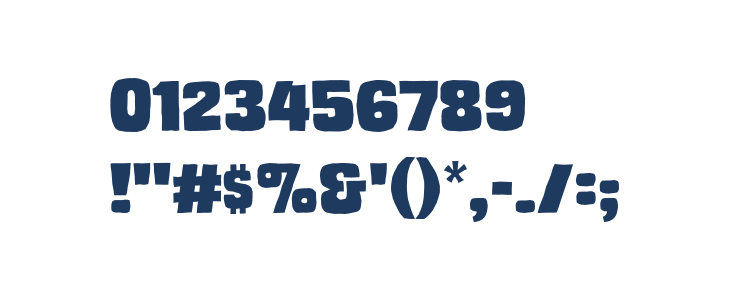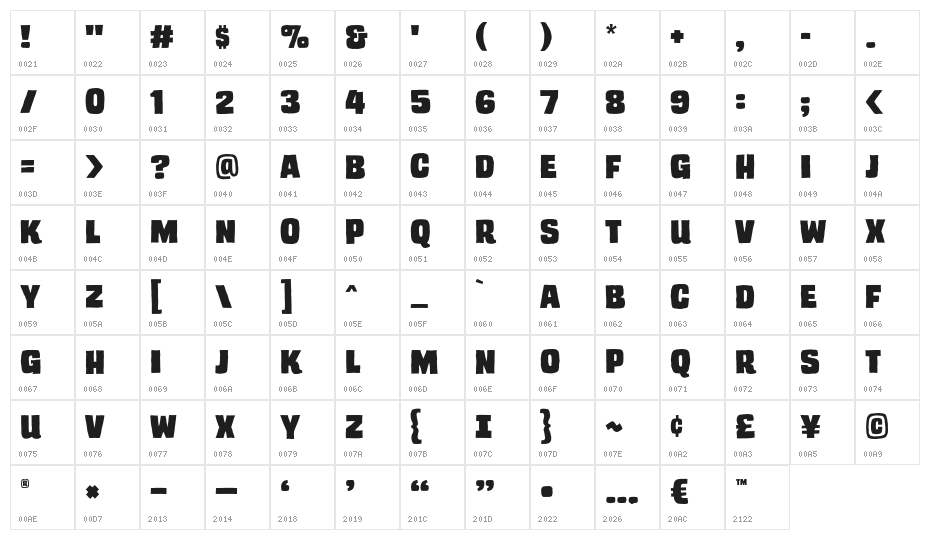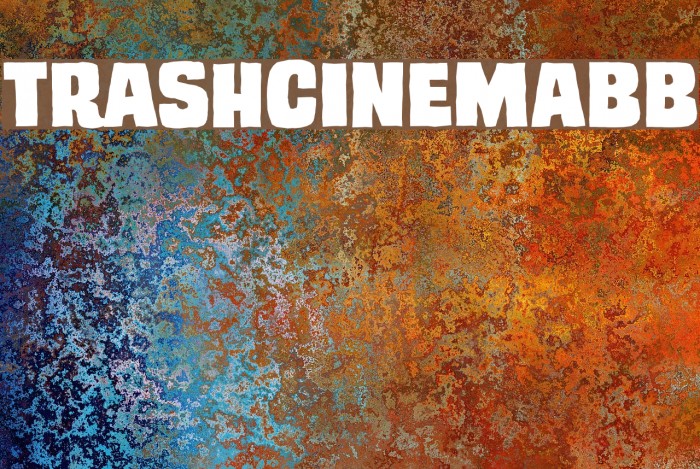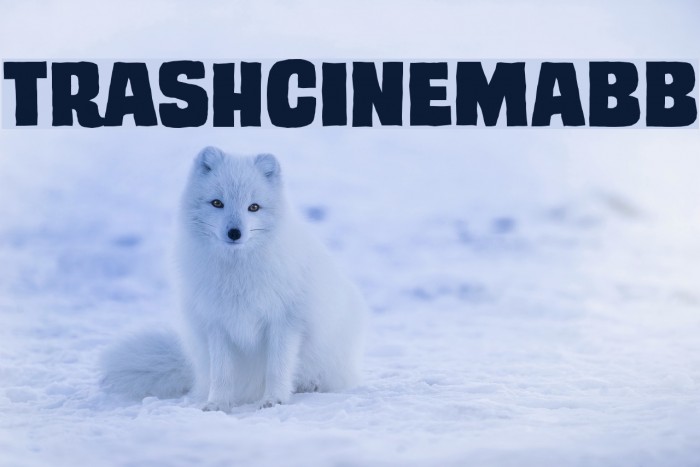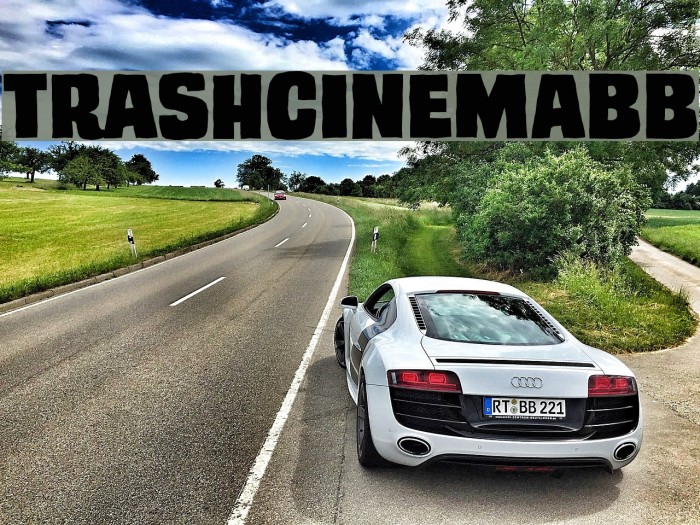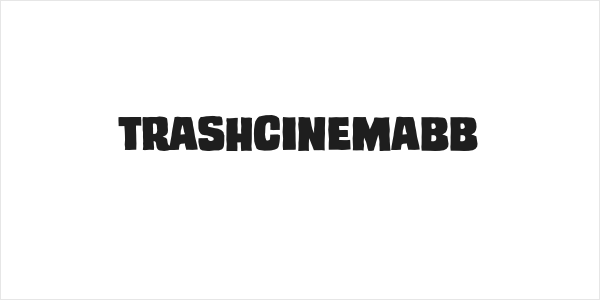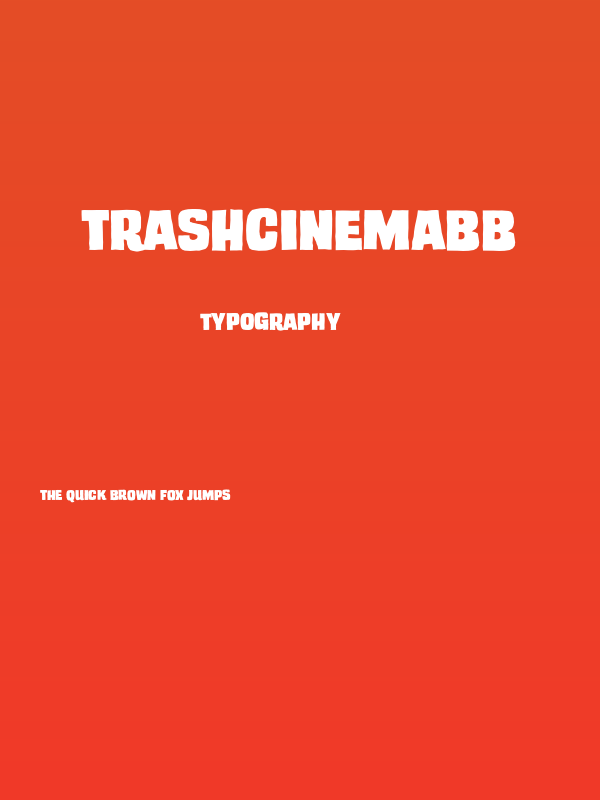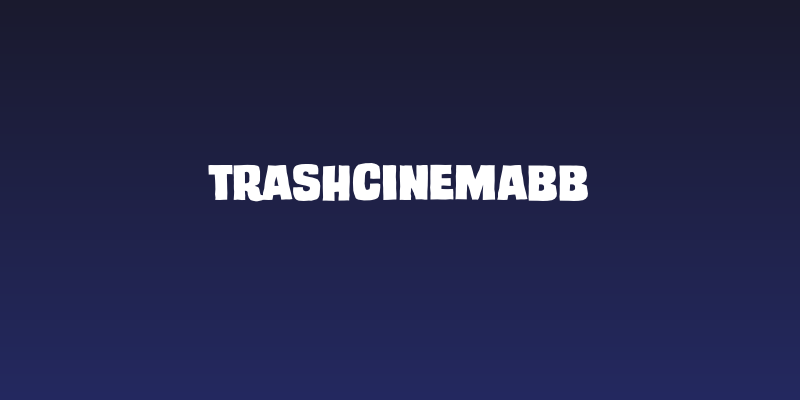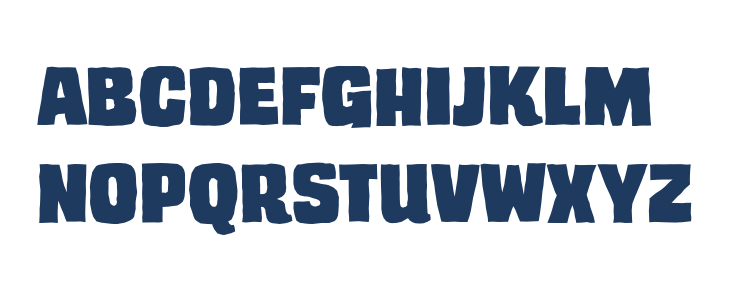
TrashCinemaBB Font
TrashCinemaBB Description
This bold and expressive font features a rugged, distressed style that evokes a sense of vintage cinema and retro aesthetics. The characters are heavily weighted with uneven edges, giving them a hand-crafted appearance. The uppercase letters are particularly striking, with a blocky form that commands attention. The numerals and special characters maintain the same boldness and irregularity, ensuring consistency across all text. This font's unique style makes it ideal for projects that require a touch of nostalgia or a gritty, urban feel.
| Proposed Projects | Ideal for movie posters, retro-themed designs, album covers, and branding that requires a bold, vintage touch. |